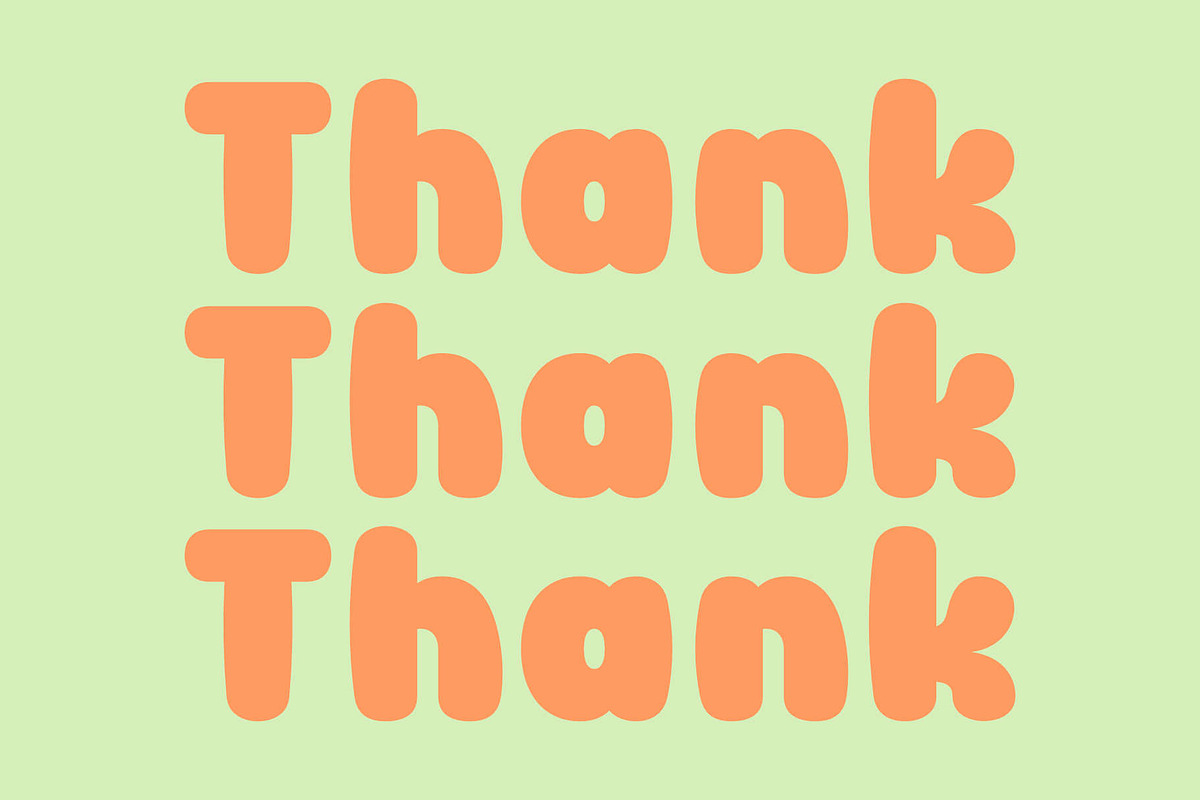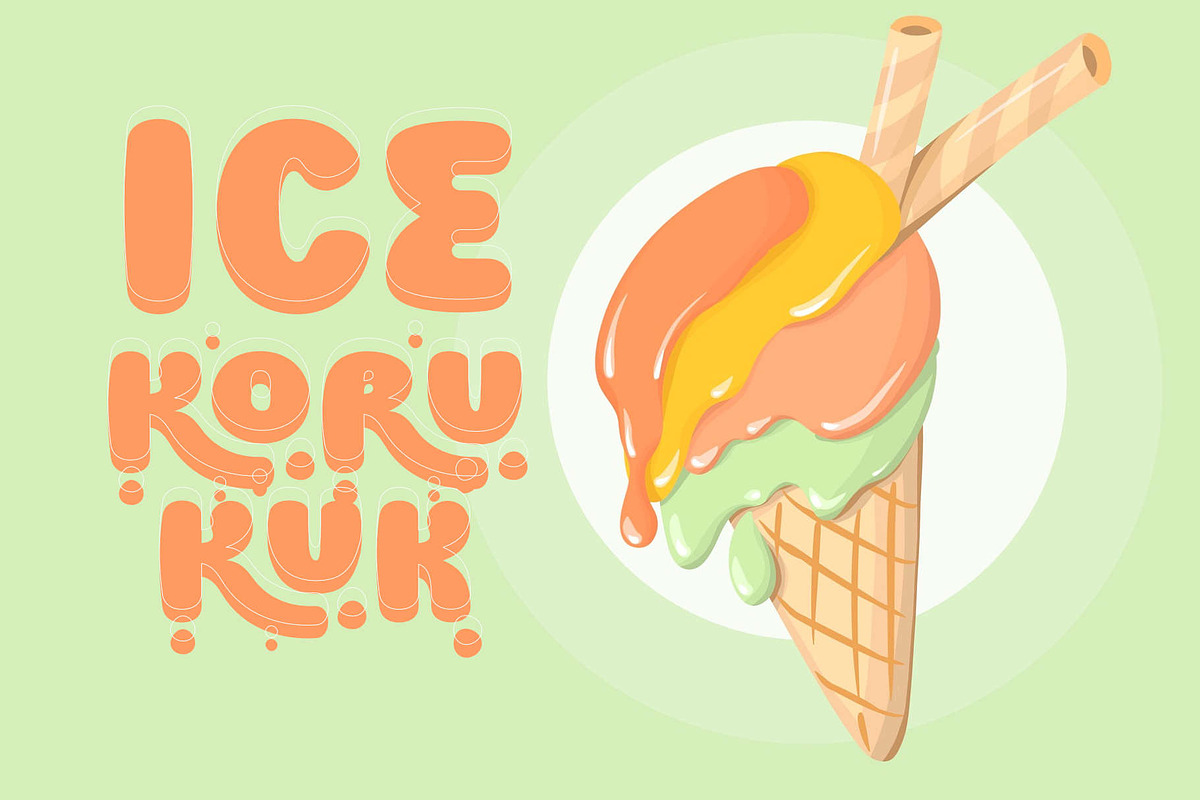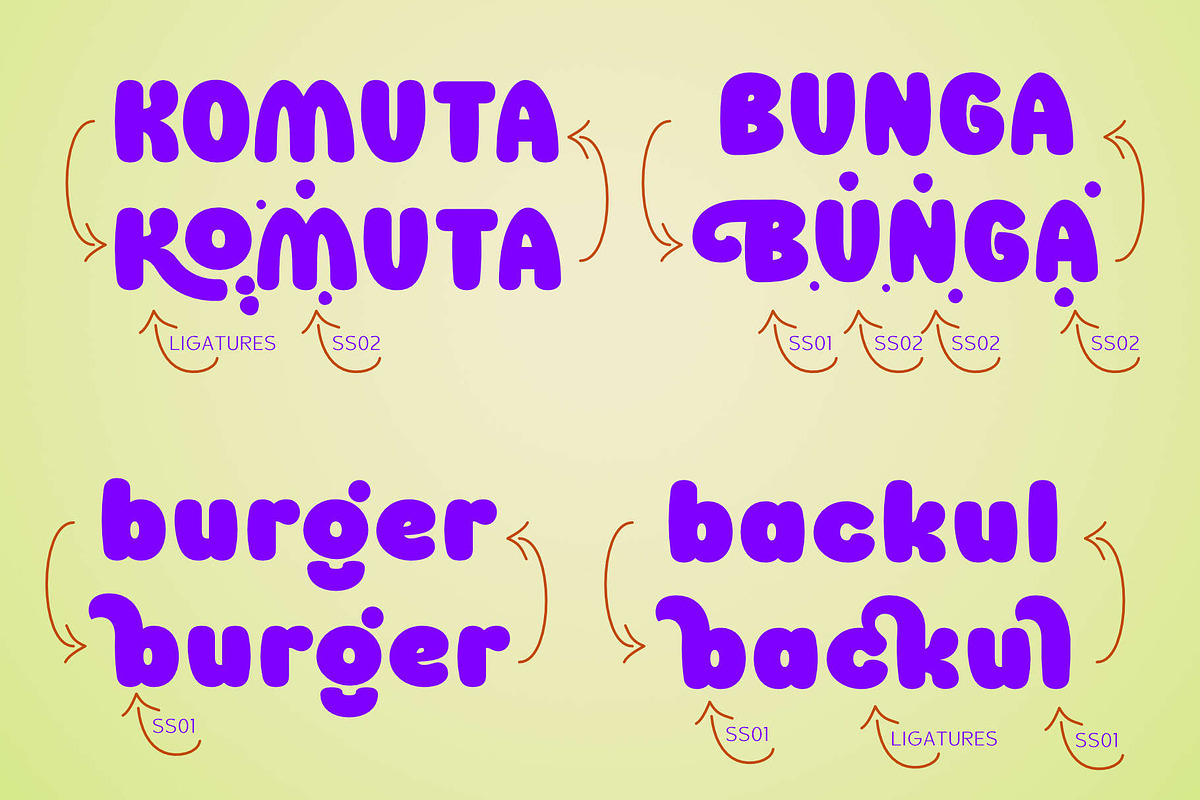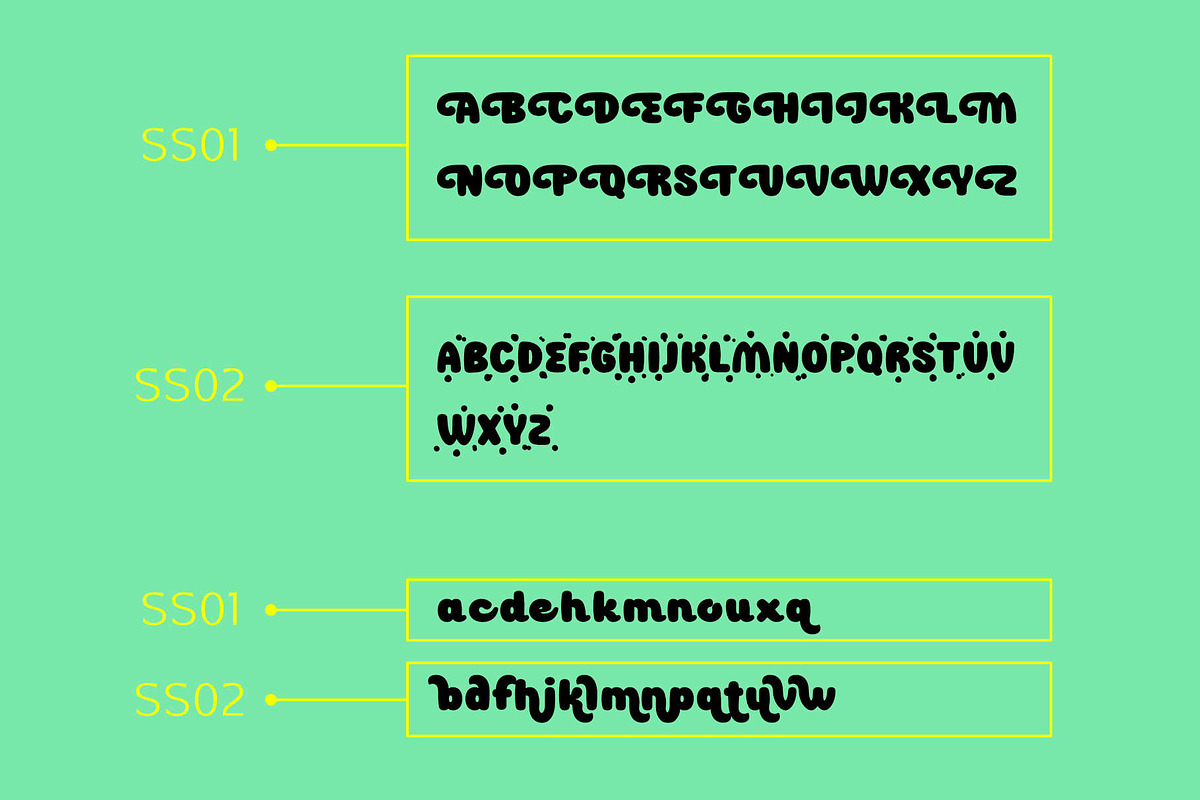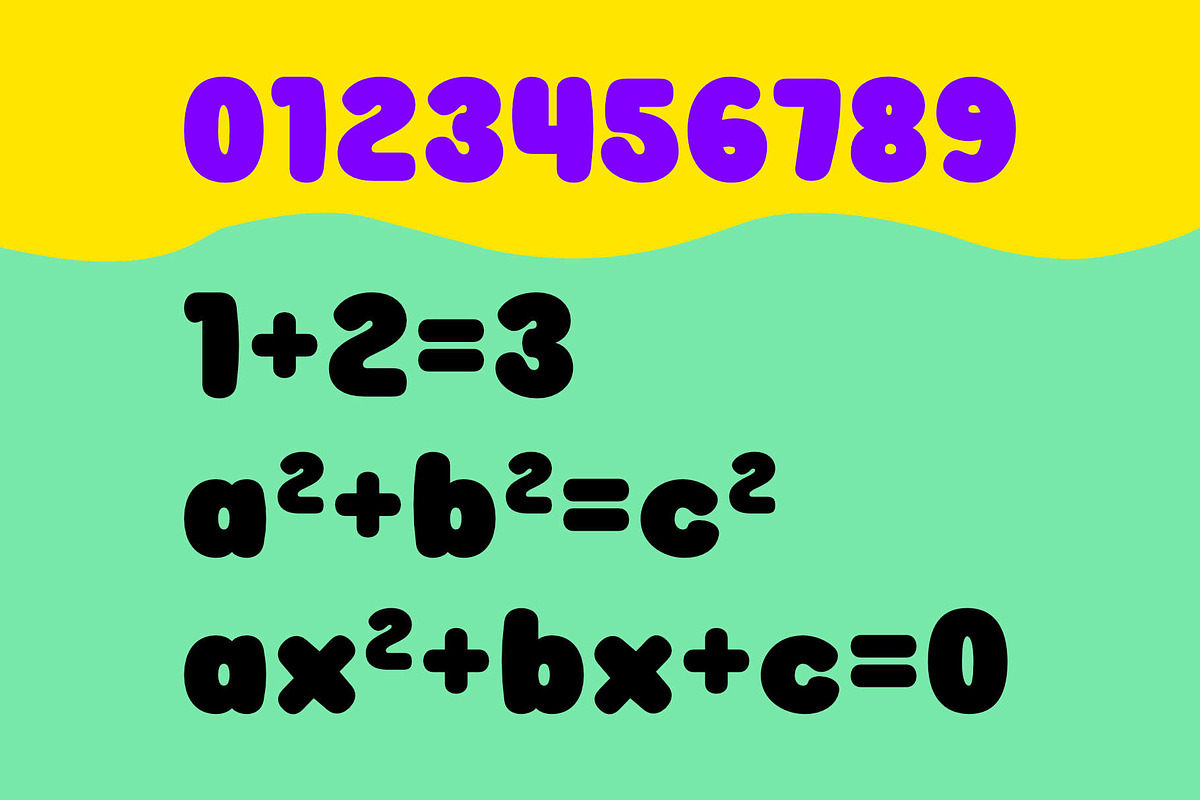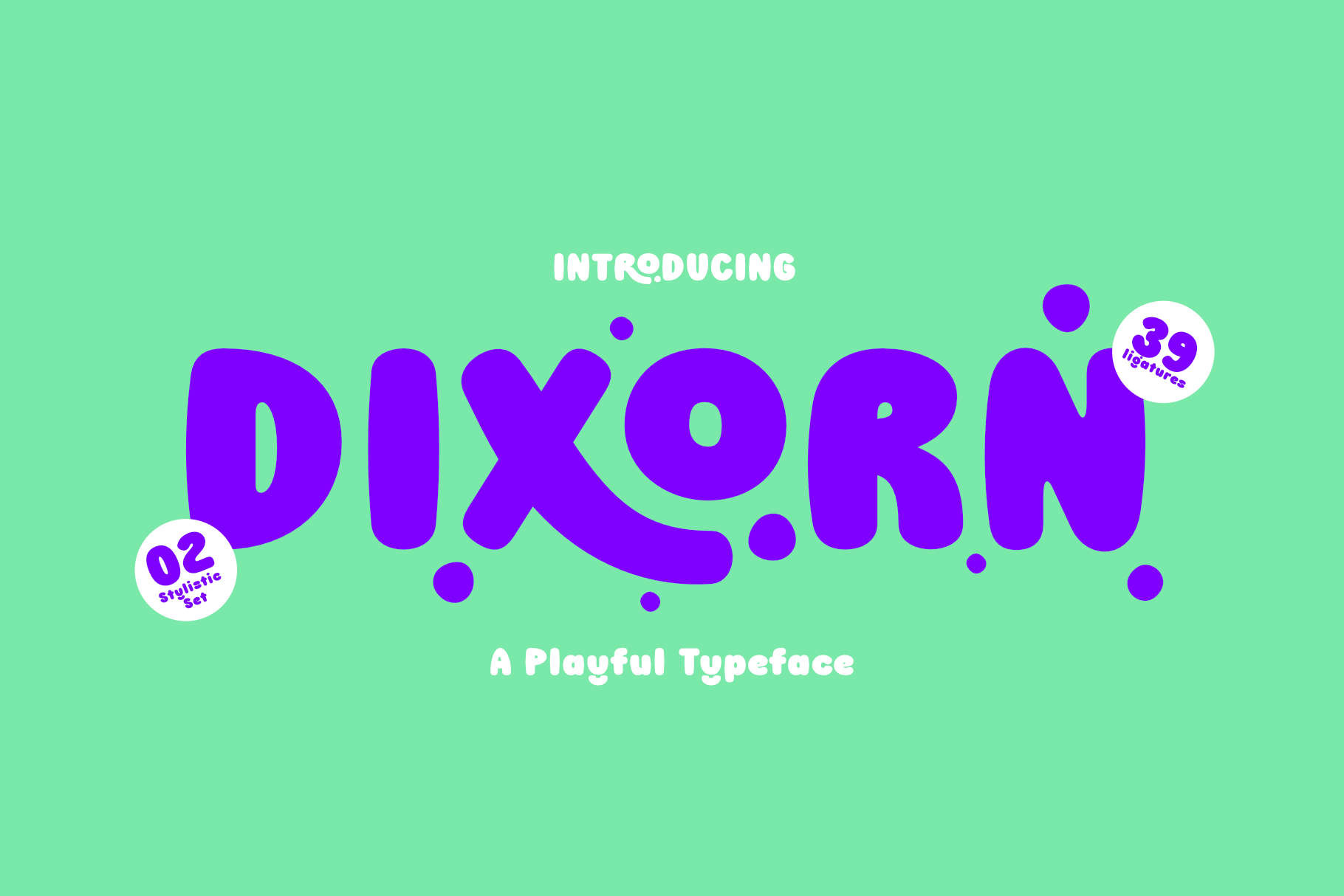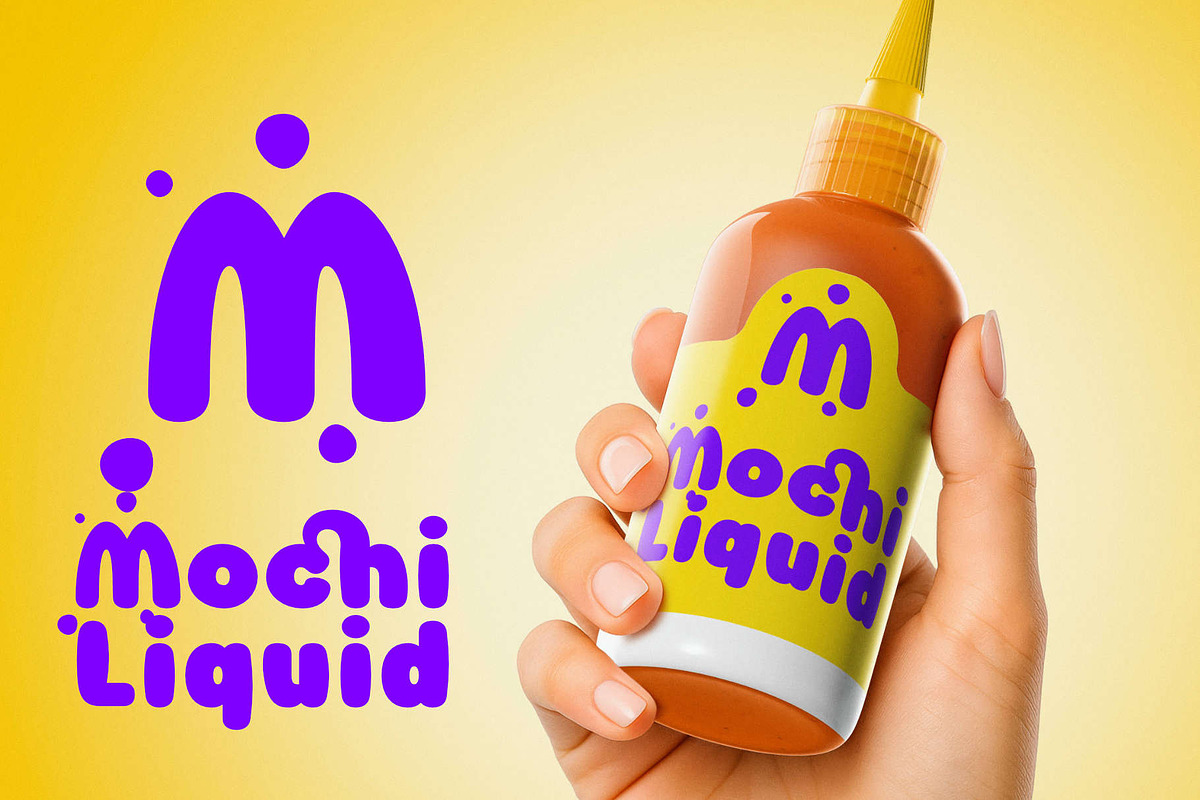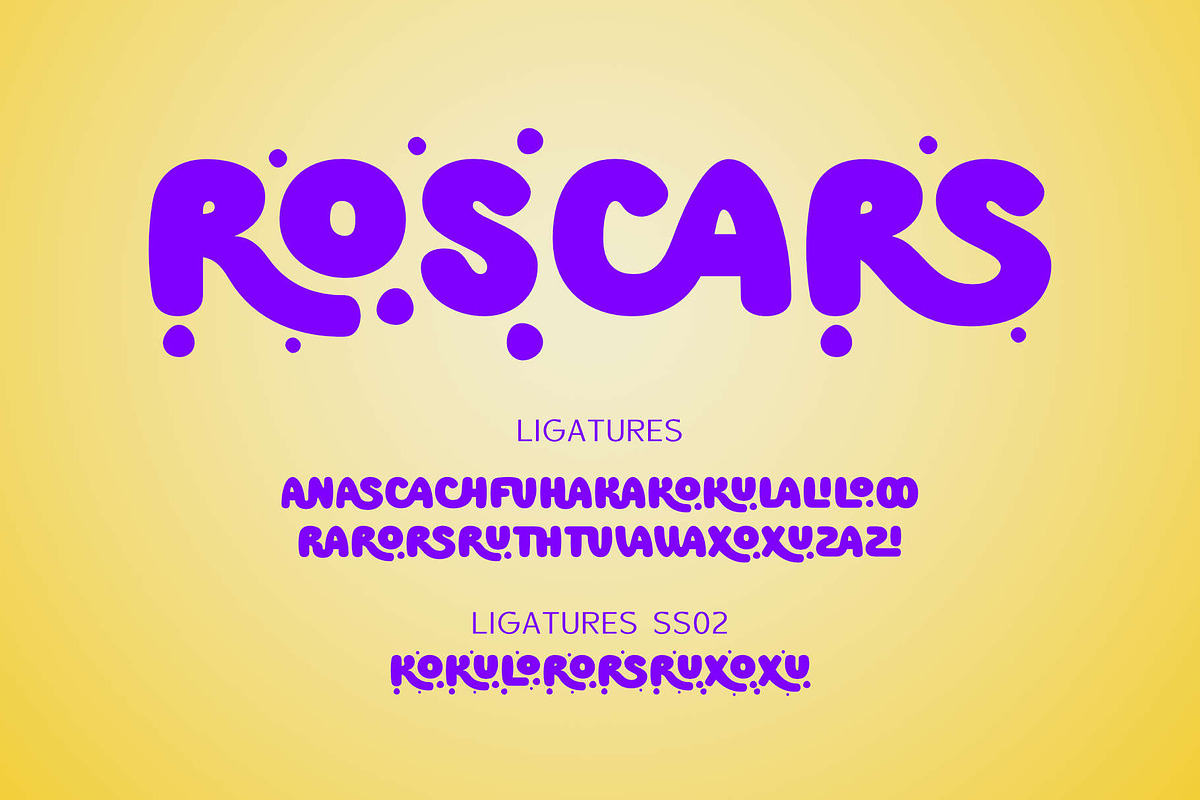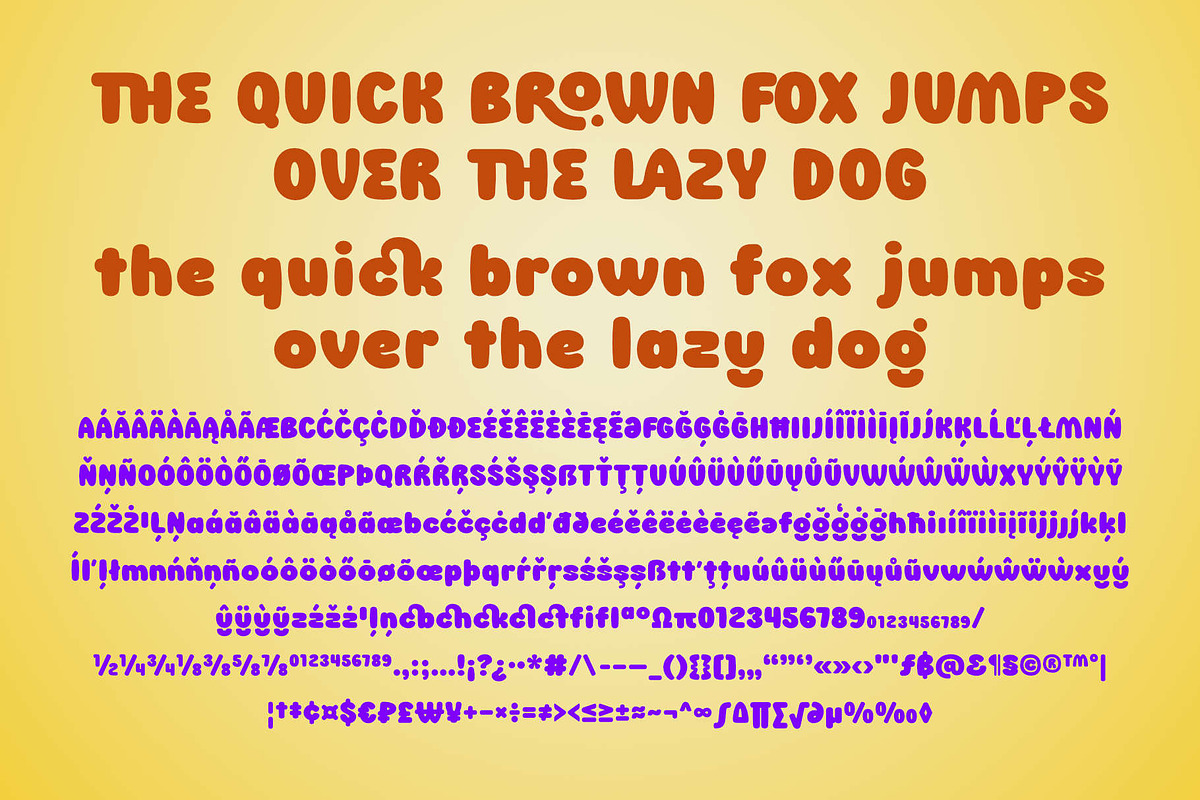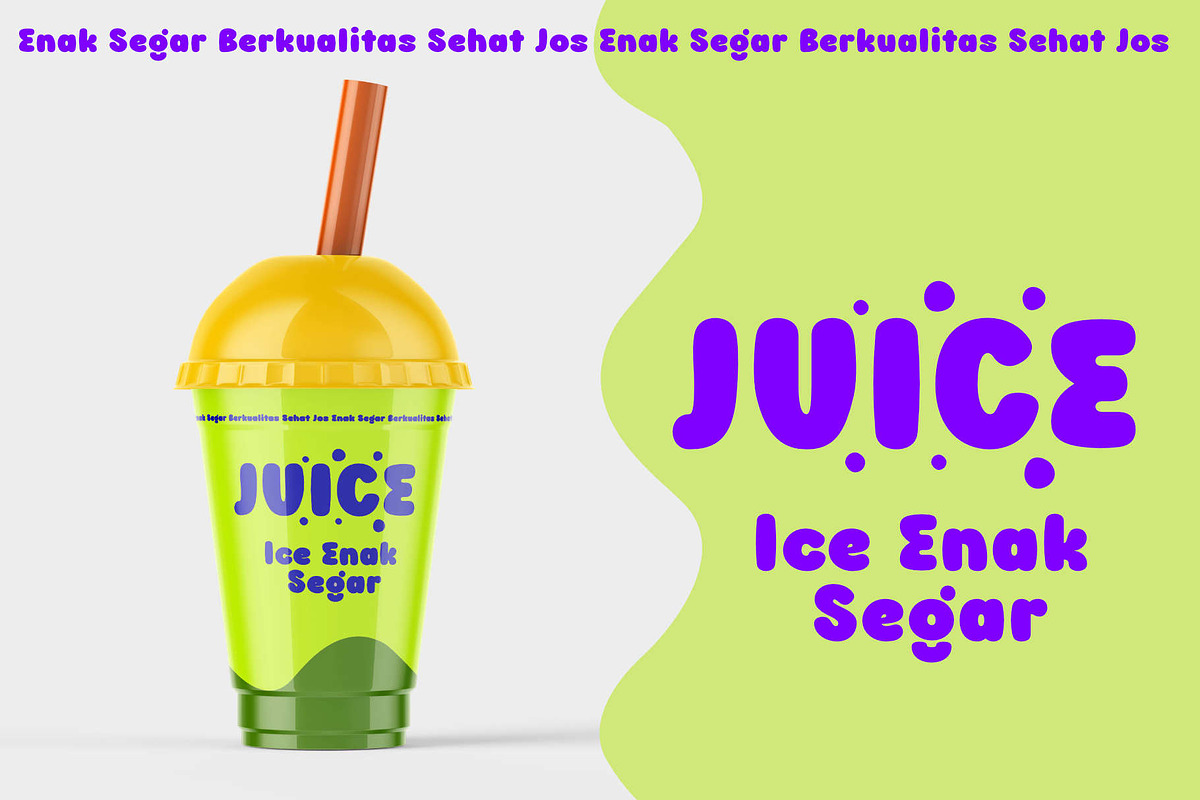
Dixorn – Bold and Bubbly Font
Meet Dixorn, a bold, bubbly, and super expressive typeface! Each letter is crafted with smooth, rounded curves that make your text feel cheerful, friendly, and full of life.
It’s as if Dixorn is breathing air! The soft curves and tiny decorative dots resemble little water bubbles, giving every word a fresh, light, and lively vibe.
Its distinctive “waterdrop” style makes the letters look alive, flowing, and slightly dewy — like they’ve just splashed out of a playful wave.
Perfect for designs that want to feel fun, joyful, and unique — from food packaging and children’s branding, to event posters and cheerful social media content.
Dixorn Features
- 2 Stylistic Sets (SS01 & SS02) with playful letter variations and unique break-air dot effects
- 39 creative ligatures for more expressive and dynamic lettering
- Complete uppercase & lowercase letters
- Multilingual support, including accented characters
- Includes numbers, punctuation, and symbols
Turn on SS02 for a stronger, airy look — the letters have decorative dots like bursting bubbles around their shapes. Or use SS01 for a softer, flowing style. Mix and match the stylistic sets to create your own fun rhythm — no two words have to look the same!